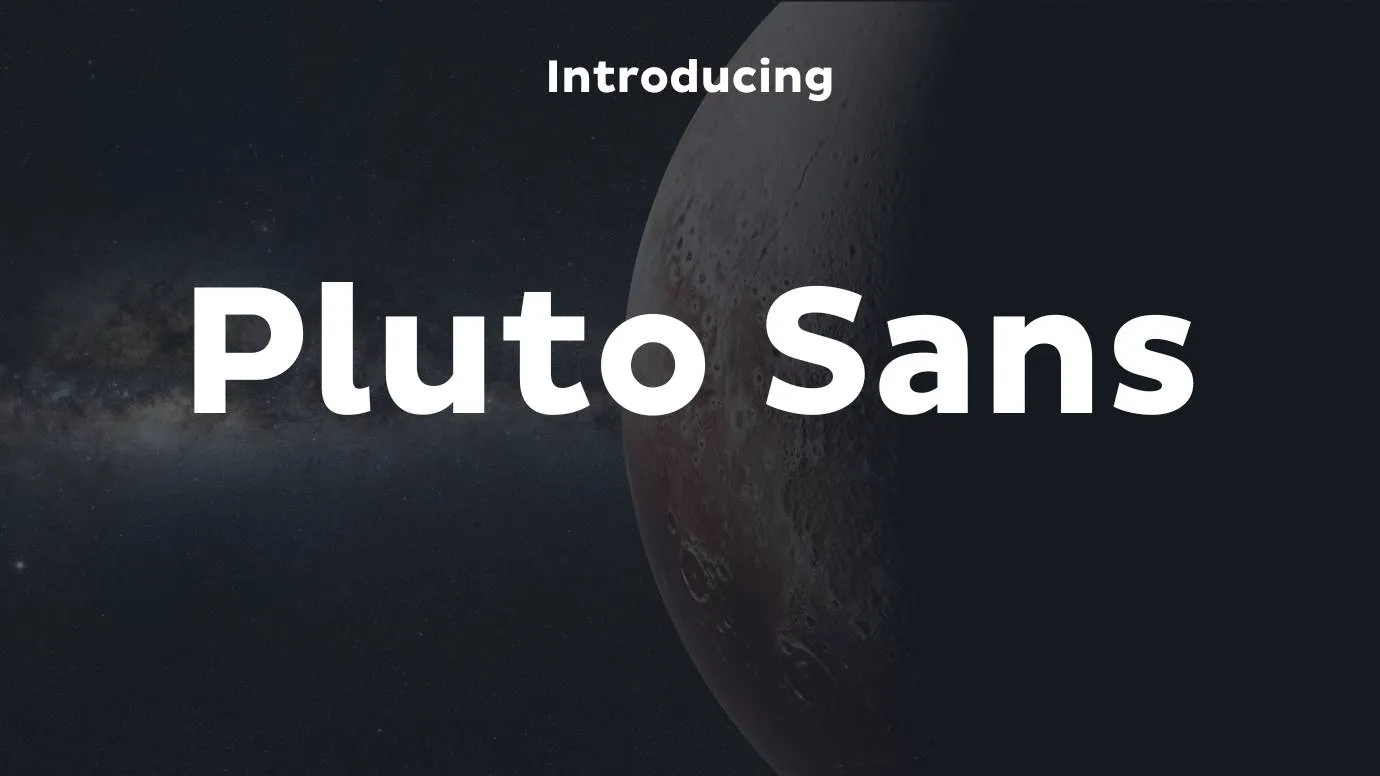
Pluto Sans Font Family a geometric sans serif font known as Pluto Sans, crafted by Hannes von Döhren and made available in 2012 via HVD Fonts. This typeface stands as a reliable staple, ideal for extensive text work.
NamePluto Sans Font
DesignerHannes von Dohren
FoundryHVD Fonts
StyleSans Serif
Date Released2012